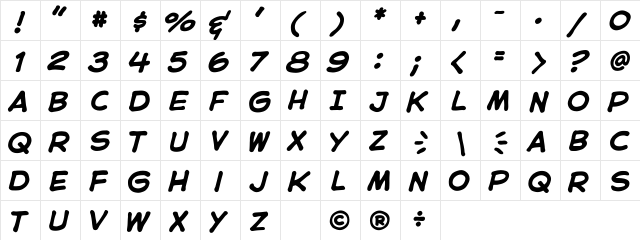
CCAstroCity BoldItalic
Design Context for CCAstroCity Typeface
CCAstroCity offers clean, dependable letterforms without strong stylistic allegiance, making it a practical choice for designers who need flexibility. The slanted form adds forward momentum and visual energy. The heavy weight commands attention and anchors typographic hierarchies.